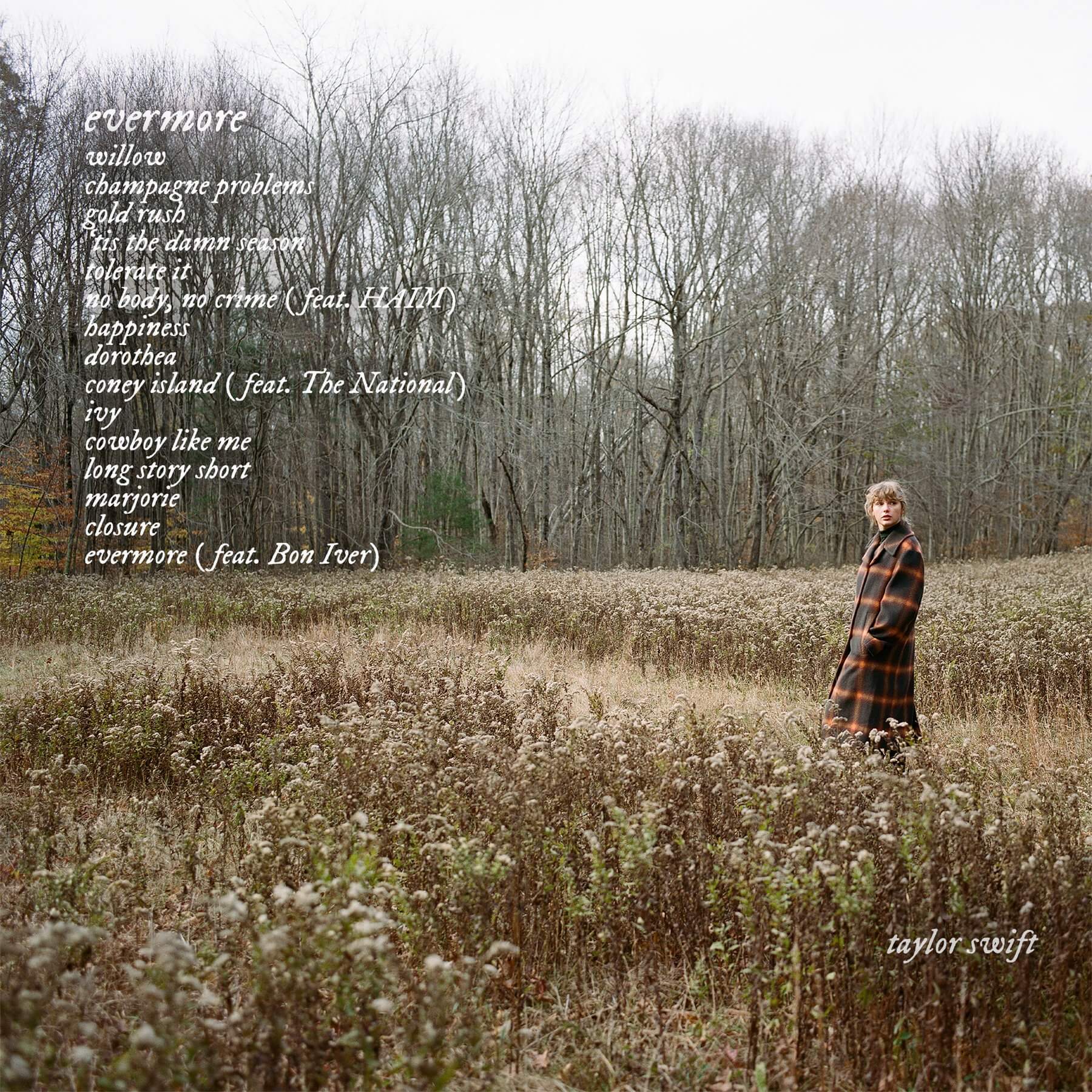
Evermore (Taylor Swift) Font
Fonts in UseEvermore is Taylor Swift's ninth studio album, released in December 2020. It features collaborations with artists such as Bon Iver and Haim.
IM Fell DW Pica is the only font used on the back cover of the album, which is a digital restoration by Igino Marini of a typeface originally created by Peter de Walpergen under John Fell.